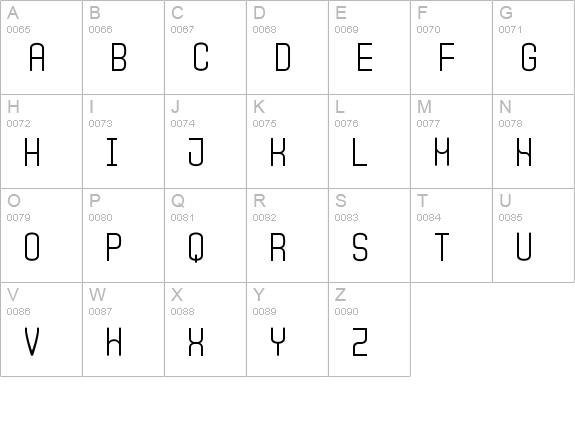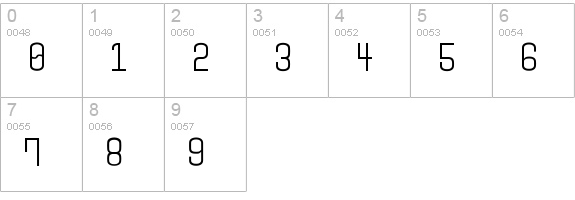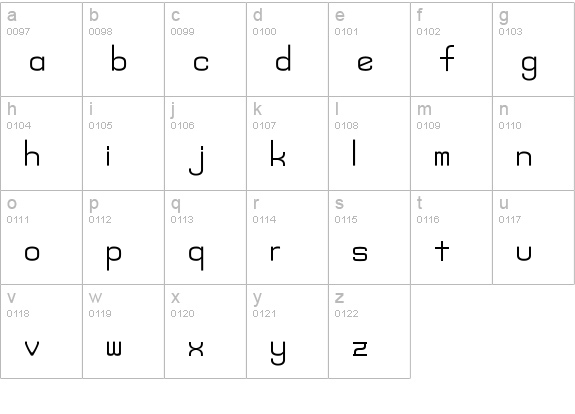
Introducing Monday (sRB) font, a modern and stylish typeface that exudes elegance and sophistication. Perfect for a wide range of design projects, this font features clean lines and a sleek appearance that will elevate any text or graphic it is applied to. Monday (sRB) font is the ideal choice for branding, advertising, packaging, and more. The best part? Monday (sRB) font is available for free download at FontsMarket.com. Yes, you read that right - you can get your hands on this stunning font at no cost at all. Don't miss out on this incredible opportunity to enhance your designs with the beauty and versatility of Monday (sRB) font. Download it today and let your creativity soar!